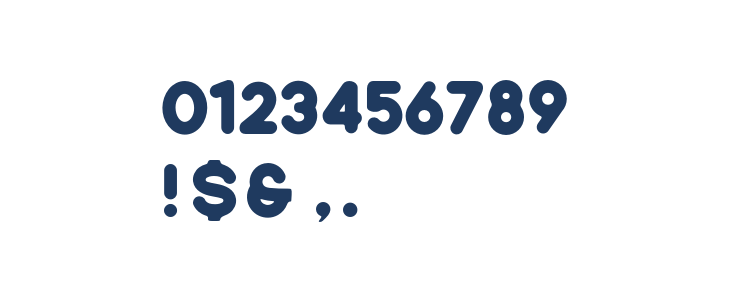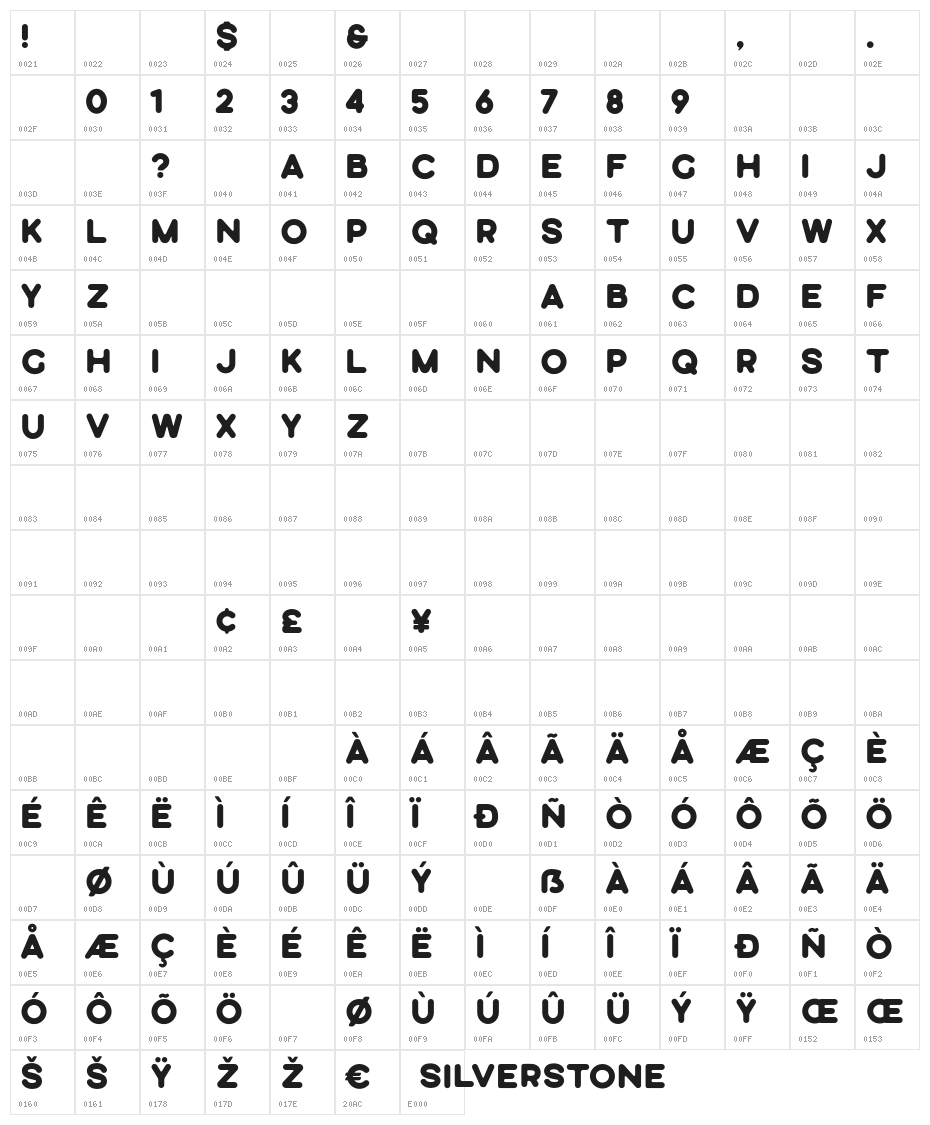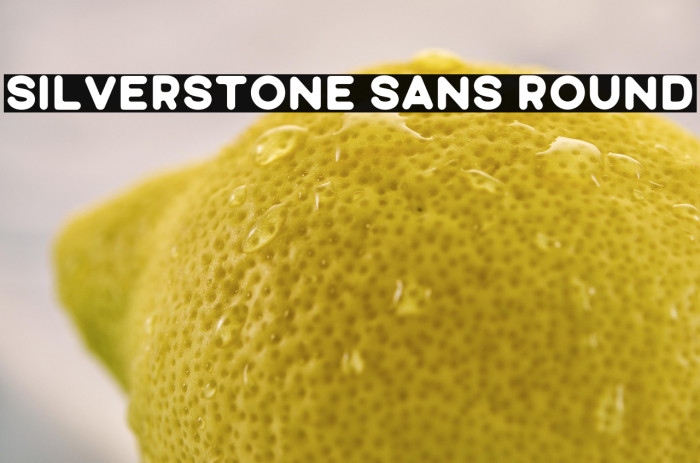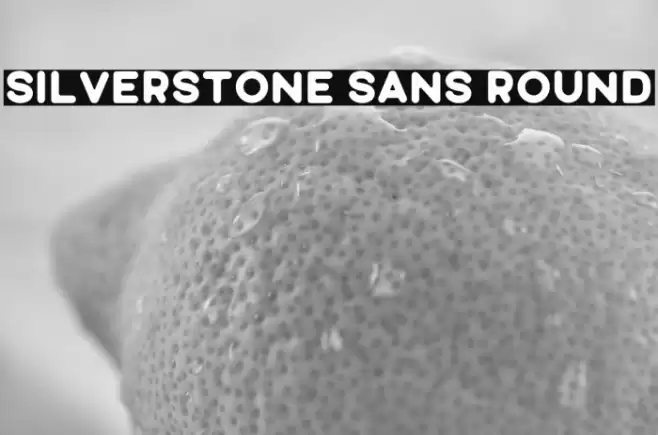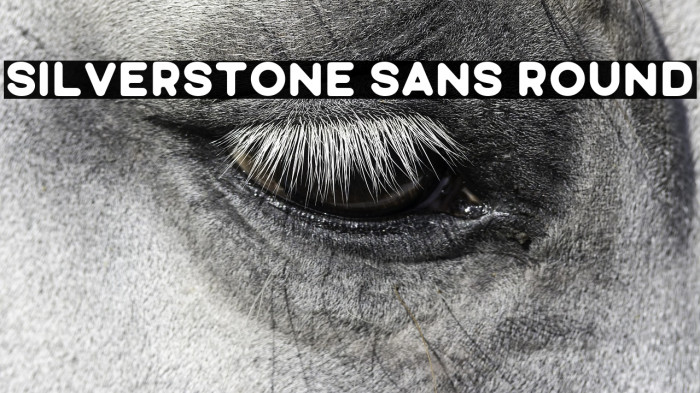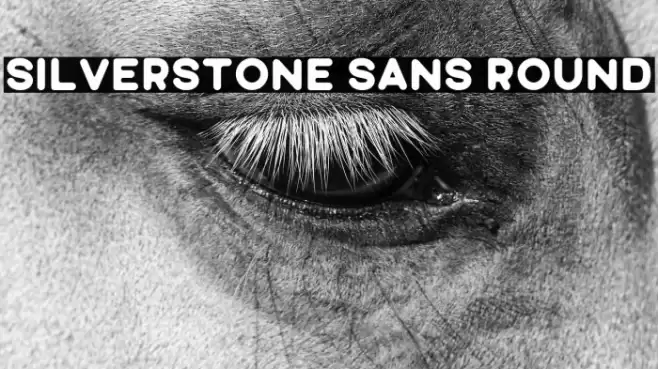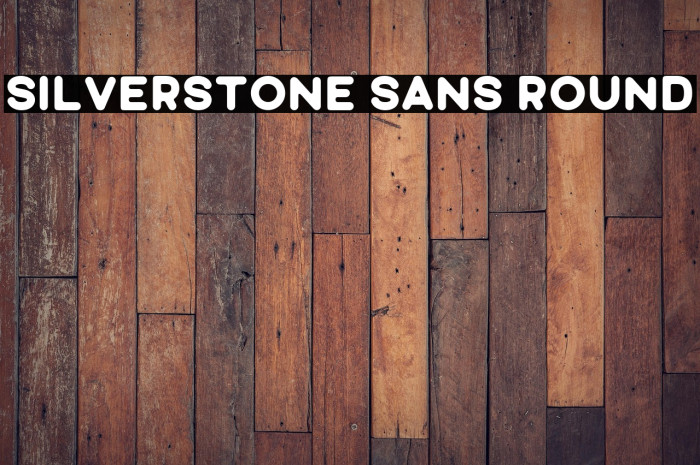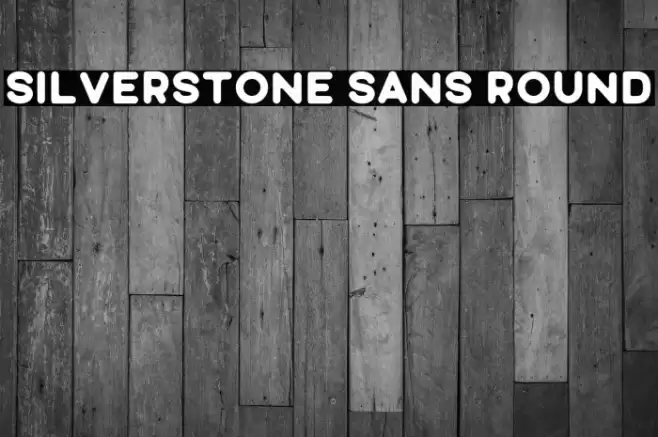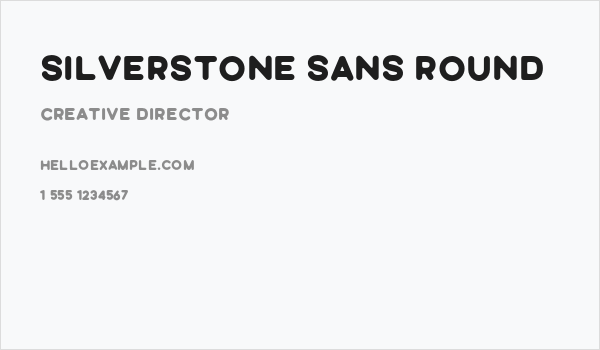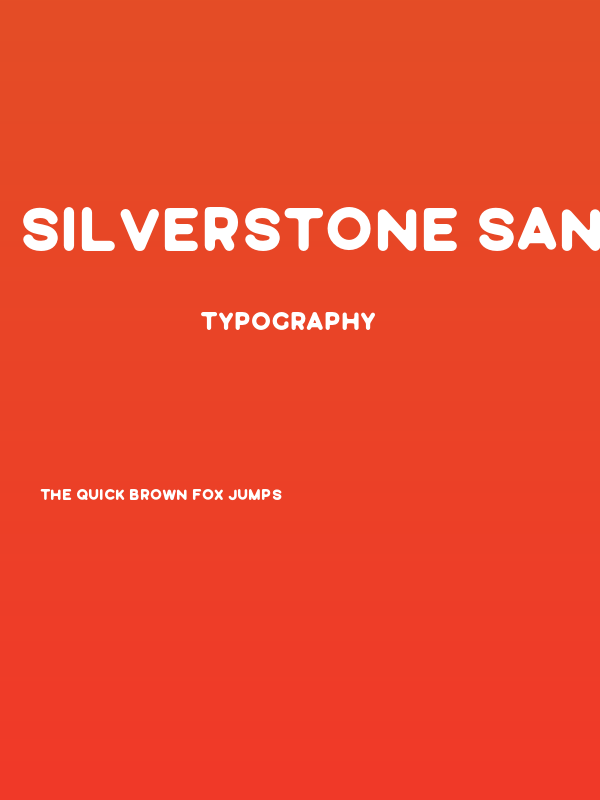
Silverstone Sans Round Font
Silverstone Sans Round Description
This font features a bold, rounded sans-serif style that exudes a modern and friendly aesthetic. The characters are uniformly thick, with smooth curves and a consistent stroke width, giving it a playful yet professional appearance. The rounded edges soften the overall look, making it approachable and versatile for various design contexts. Its boldness ensures high readability, while the rounded forms add a touch of warmth and approachability. The font maintains a balanced proportion, making it suitable for both digital and print media. Its clean and straightforward design makes it ideal for conveying messages clearly and effectively.
| Proposed Projects | Ideal for branding, advertising, children's books, and digital interfaces. |